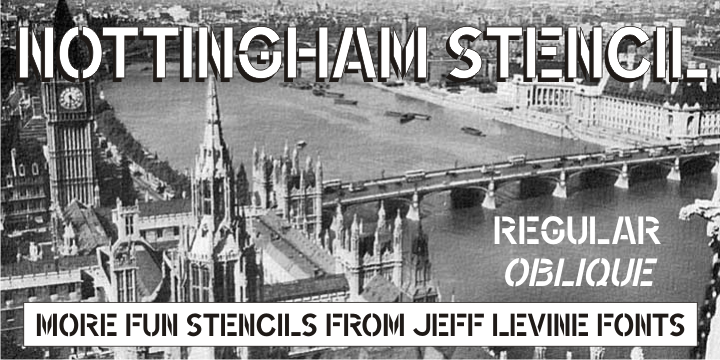
Nottingham Stencil
Nottingham Stencil JNL and its companion oblique version are the third set of fonts modeled from vintage lettering stencils made in England. These designs join British Stencil JNL and Trafalgar Stencil JNL in Jeff Levine's large library of stencil-themed typefaces.
Nottingham Stencil JNL Regular by Jeff Levine Fonts